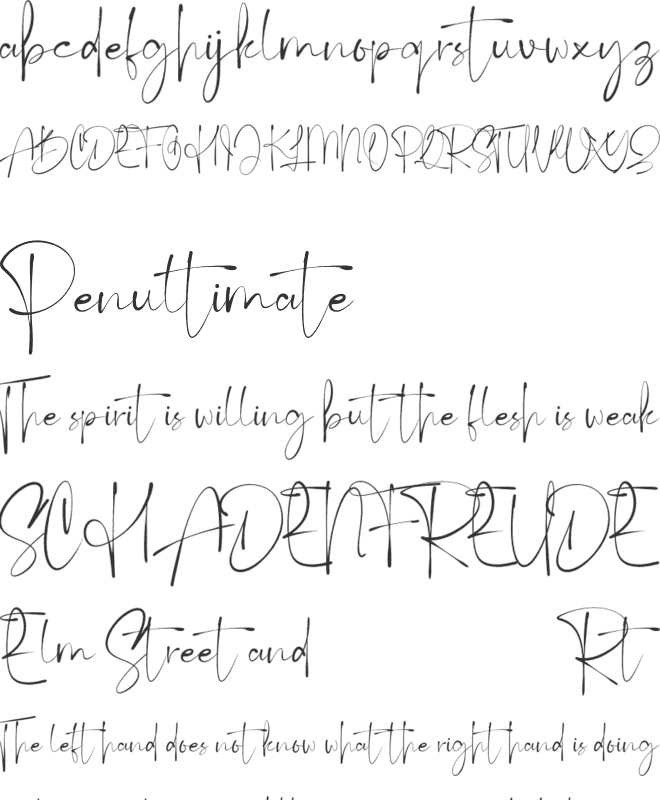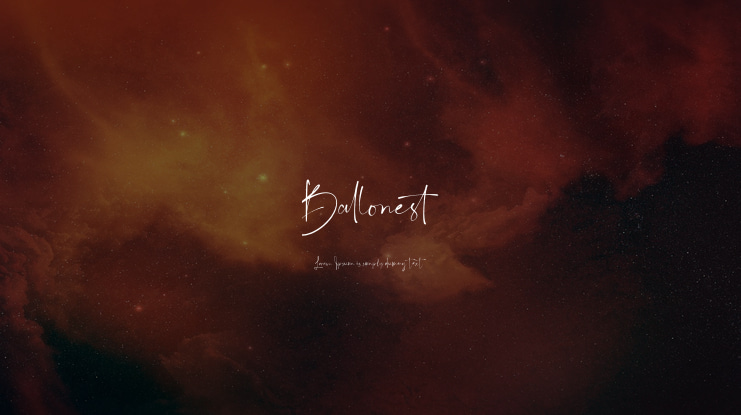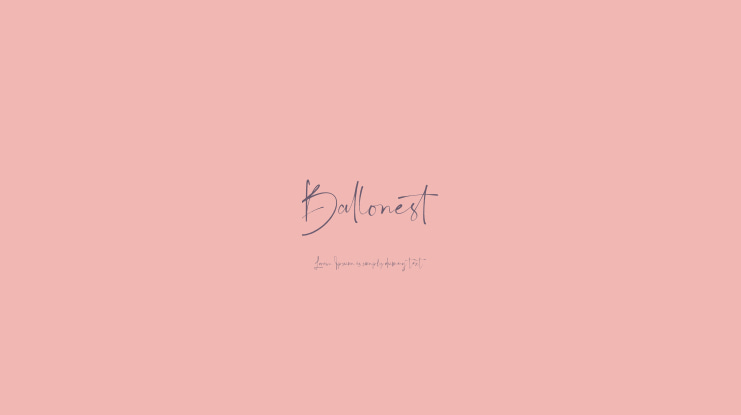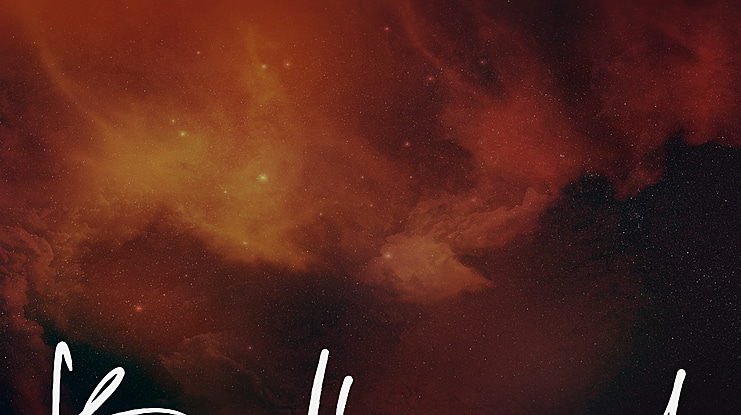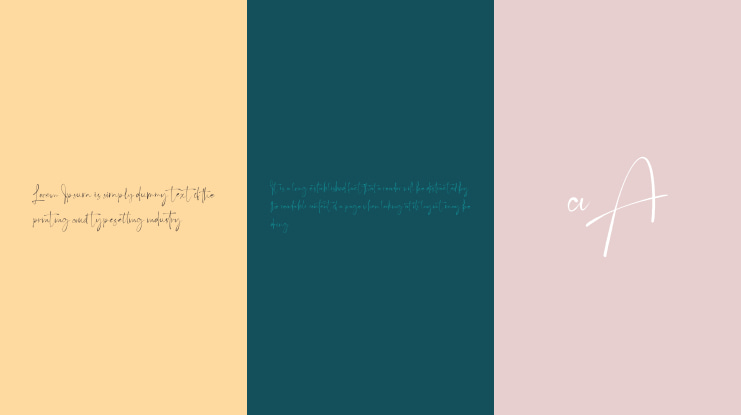
Ballonest Font
This is a handwritten font with a stylish, elegant and natural touch. It has an original feel and beautiful handwriting. Made seriously, with care and with feeling. Ballonest would perfect for photography, watermark, social media posts, advertisements, logos & branding, invitation, product designs, label, stationery, wedding designs, product packaging, special events or anything that need handwriting taste. Your download will include files;